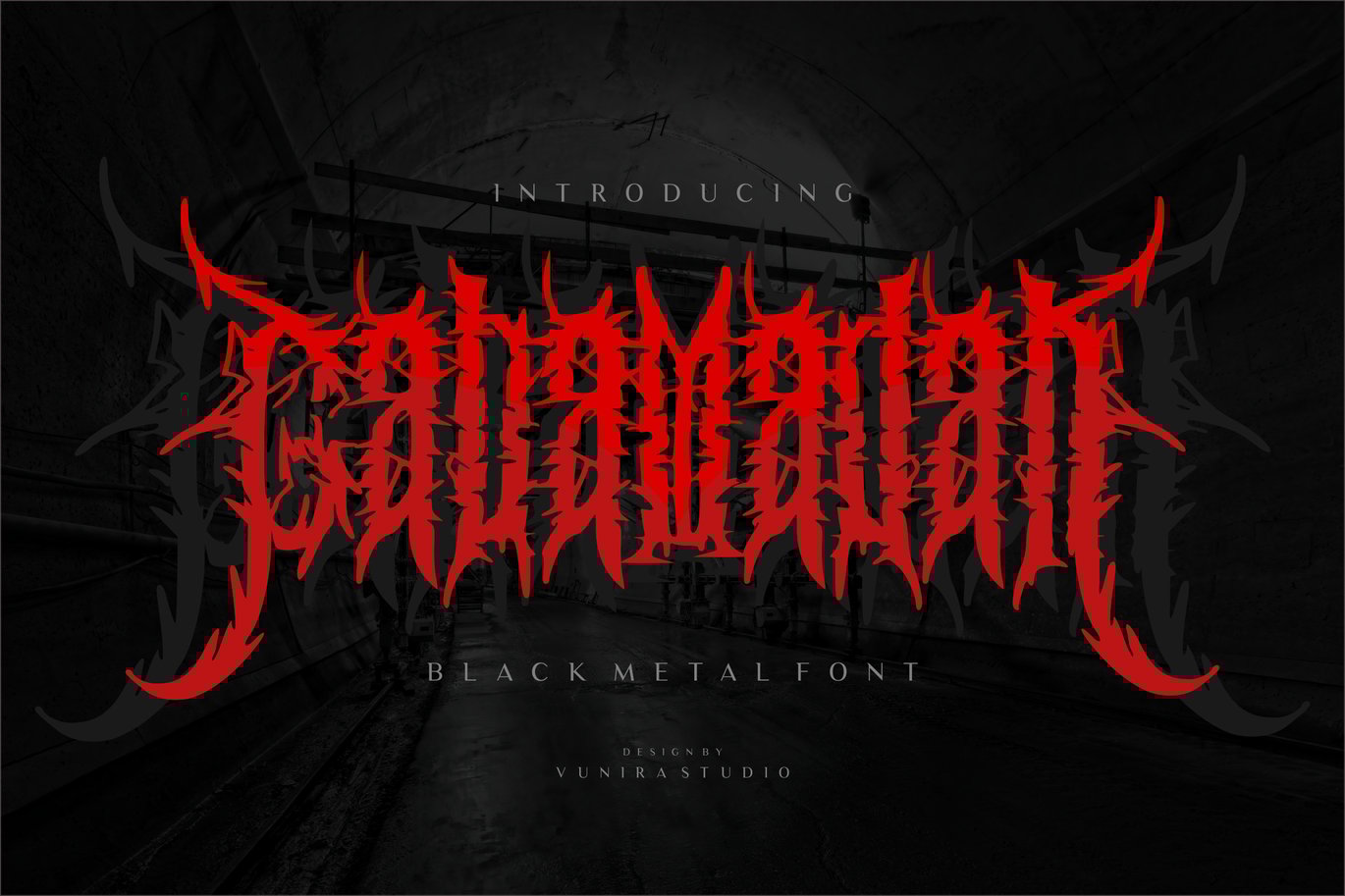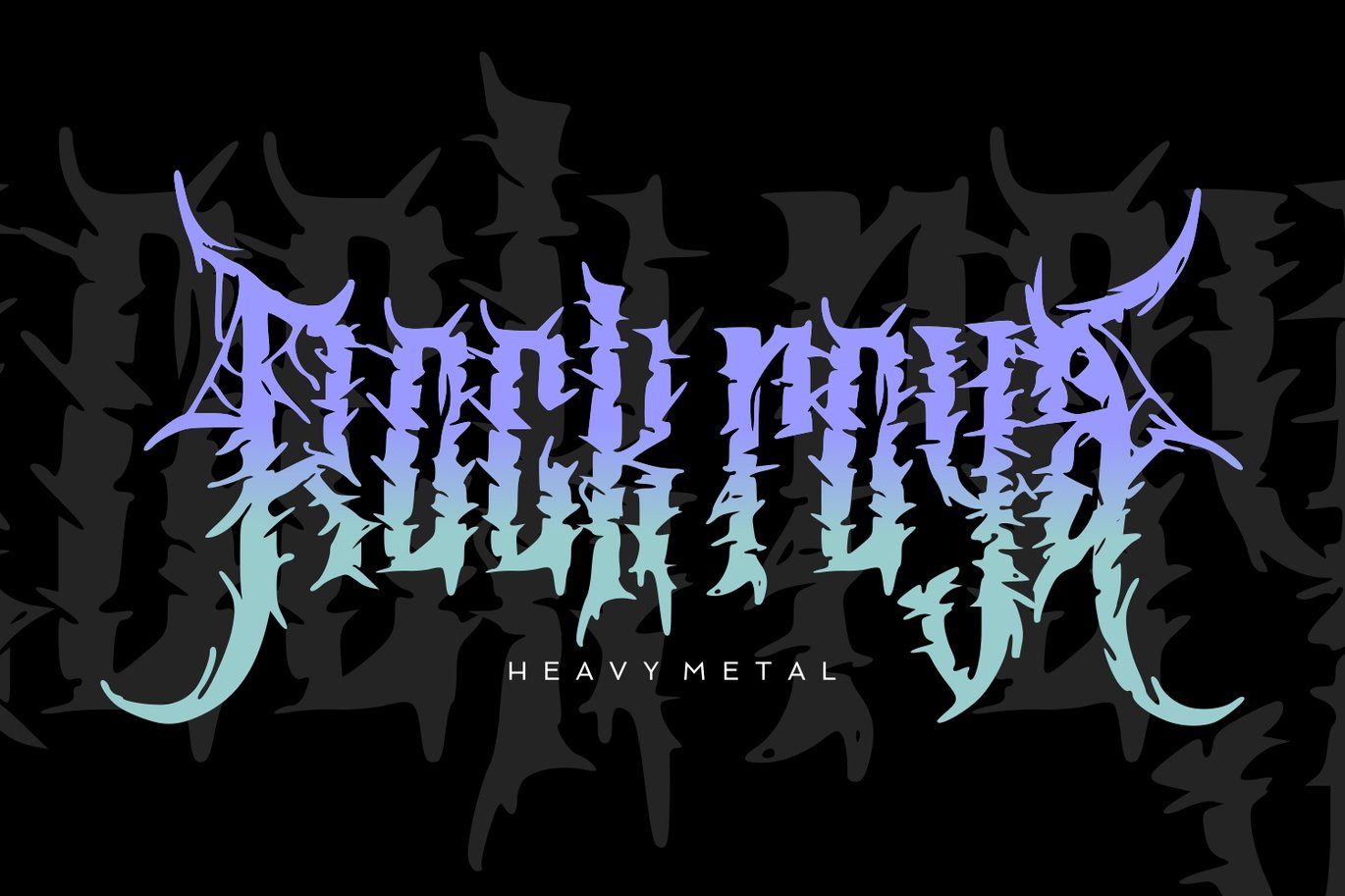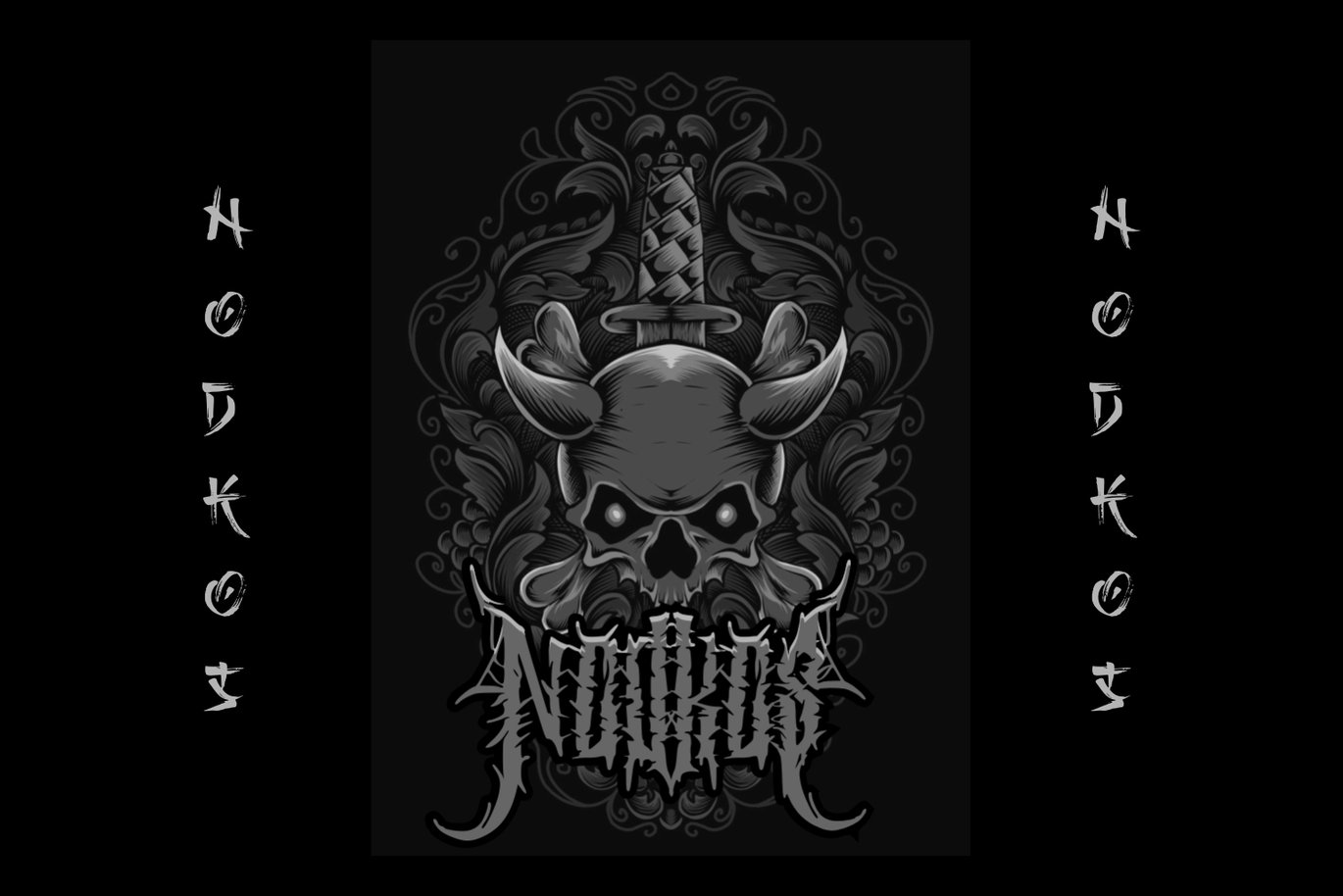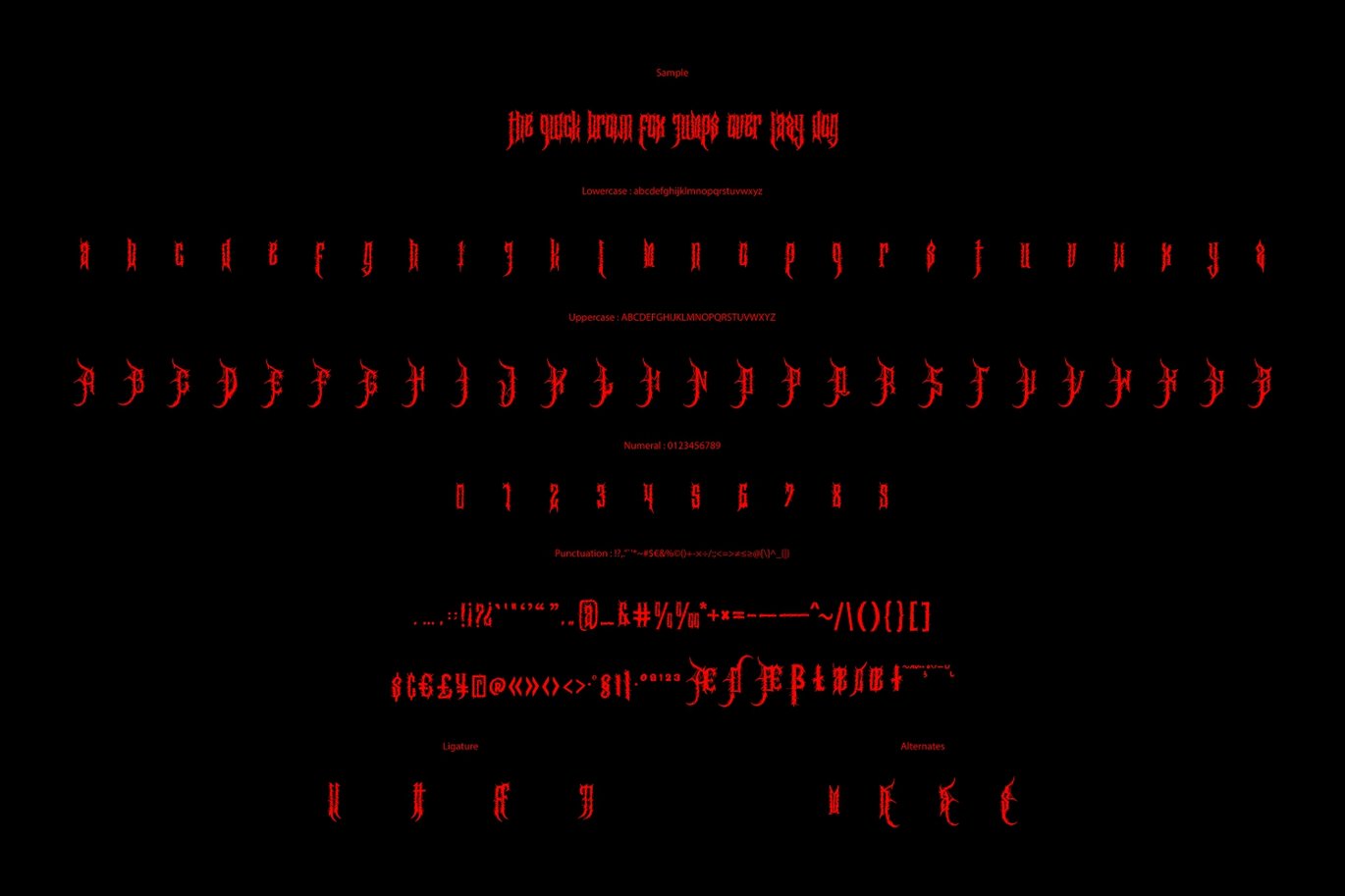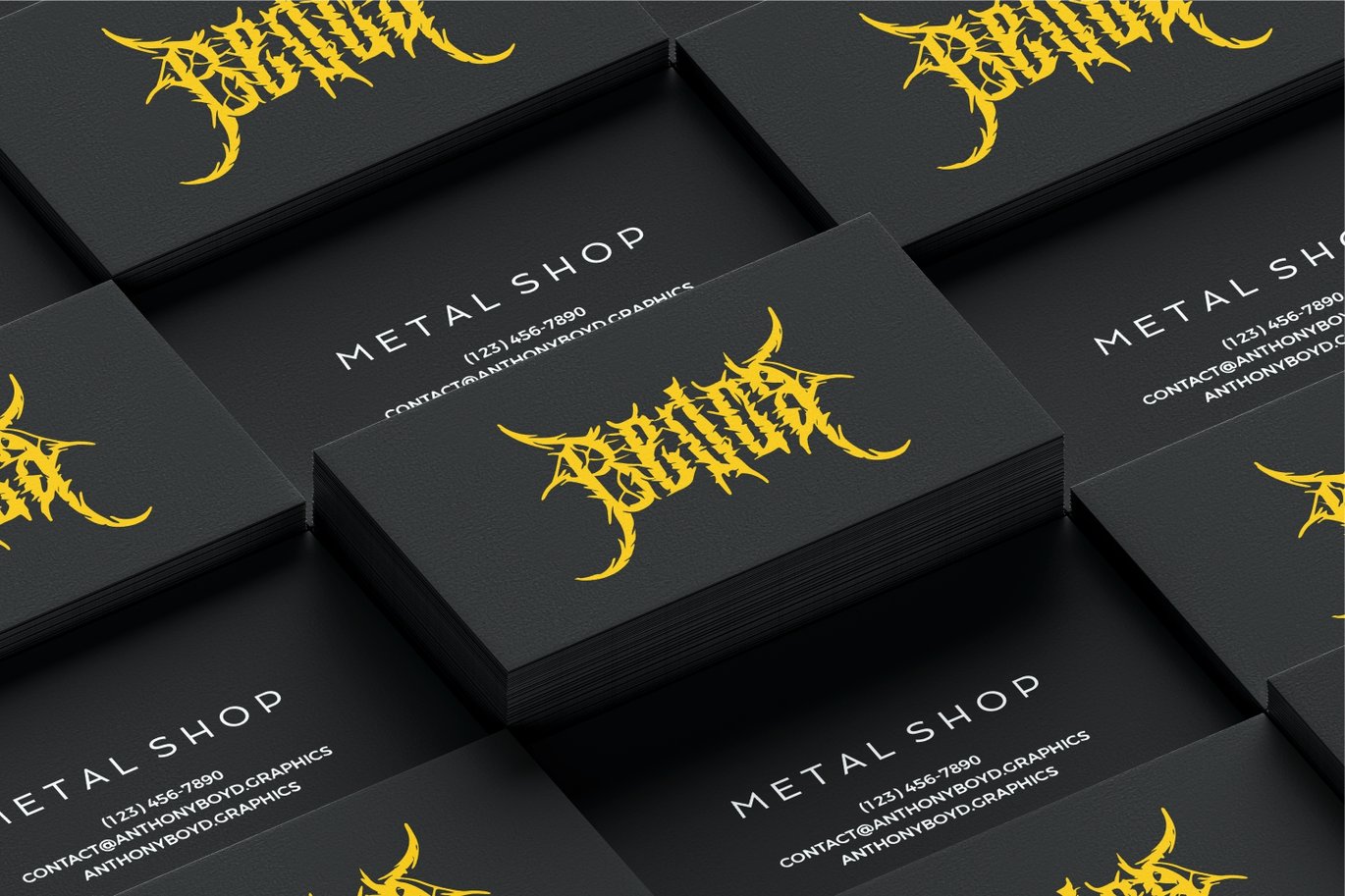
Gabamadah – Metal Font
Gabamadah – Metal Font with a calligraphy style, So beautiful on invitation like greeting cards, branding materials, business cards, quotes, posters, and more!